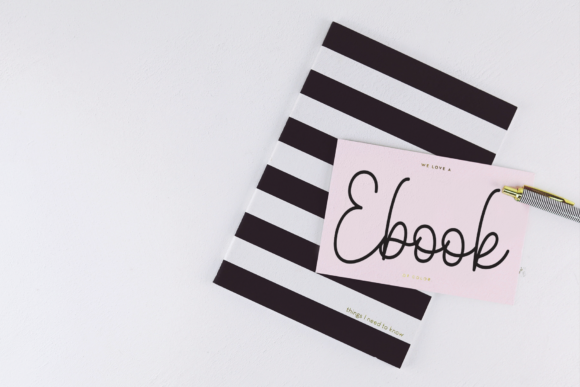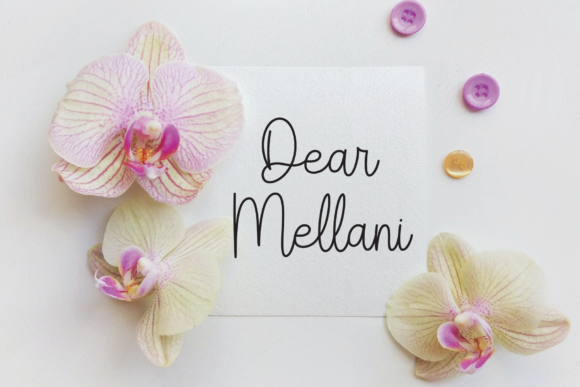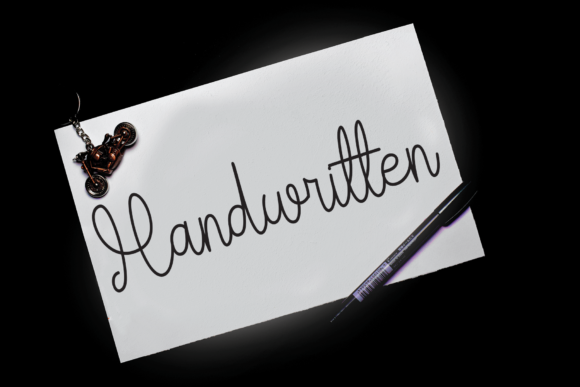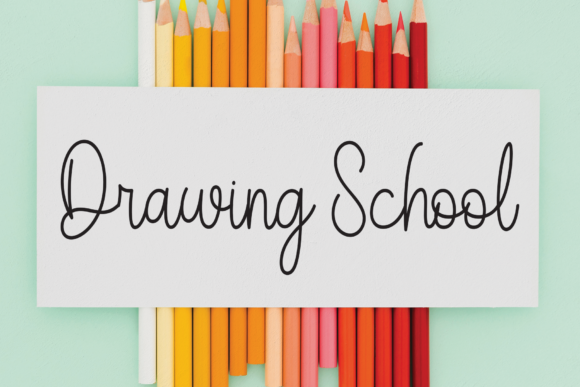
Easter Font
About Easter Font
The exquisite and flowing handwritten font you’ve described is a design masterpiece, perfectly suited for a diverse array of creative projects. Its beauty and graceful script make it a versatile choice for adding elegance and sophistication to a wide range of applications. Here’s an extended version:
**Wall Hangings:** Transform your living or workspaces into personalized art galleries with captivating wall hangings. The beautiful script of this font adds a unique touch, turning your walls into a canvas of visual delight.
**Wedding Invitations:** Infuse a sense of romance and timeless beauty into your wedding invitations. The flowing script sets the perfect tone for a celebration of love, making each invitation a cherished piece of art.
**Social Media Post Logos:** Craft distinctive and memorable logos for your social media presence. The beauty and flow of this font bring authenticity and elegance to your brand, ensuring a standout and sophisticated visual identity.
**Advertising:** Elevate your advertising materials with typography that leaves a lasting impression. The impressive and flowing characters of this font bring refinement and charm to your promotional campaigns, making them visually striking.
**Product Packaging and Design:** Add a touch of luxury and style to your products with packaging that captivates. Whether on labels or overall product design, this font enhances the visual appeal, making your products stand out on the shelves.
**Labels:** Create labels that not only convey information but also make a statement. The beautiful script adds an artistic touch, ensuring your products are noticed and remembered for their aesthetic appeal.
**Photography:** Enhance your photography with a watermark that complements your artistic vision. The flowing script becomes a signature element, turning each photograph into a captivating piece of visual storytelling.
**Invitations and Stationery:** Whether for formal events or everyday correspondence, this font elevates invitations and stationery to a new level of elegance. Each piece becomes a testament to timeless sophistication, leaving a lasting impression.
In essence, this beautiful and flowing handwritten font is a design powerhouse, capable of enhancing the visual appeal of wall hangings, wedding invitations, social media logos, advertising materials, product packaging, labels, photography, watermarks, invitations, stationery, and any project that demands impressive typography. Its versatility and timeless elegance make it an invaluable asset for creative projects across various mediums.